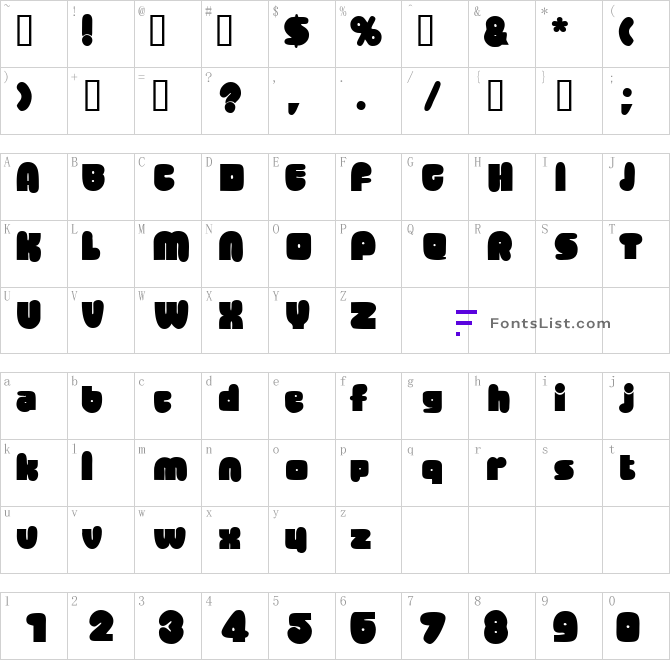
- Font Name:BantaDisplaySSi
BantaDisplaySSi.ttf is a very beautiful artistic font, BantaDisplaySSi.ttf is widely used in the design and printing of various books and pictures,BantaDisplaySSi.ttf has a strong visual impact,BantaDisplaySSi.ttf is a commonly used font in newspapers, magazines and books, and is used in posters, e-commerce Poster design, store design, logo design, font design and other fields.BantaDisplaySSi.